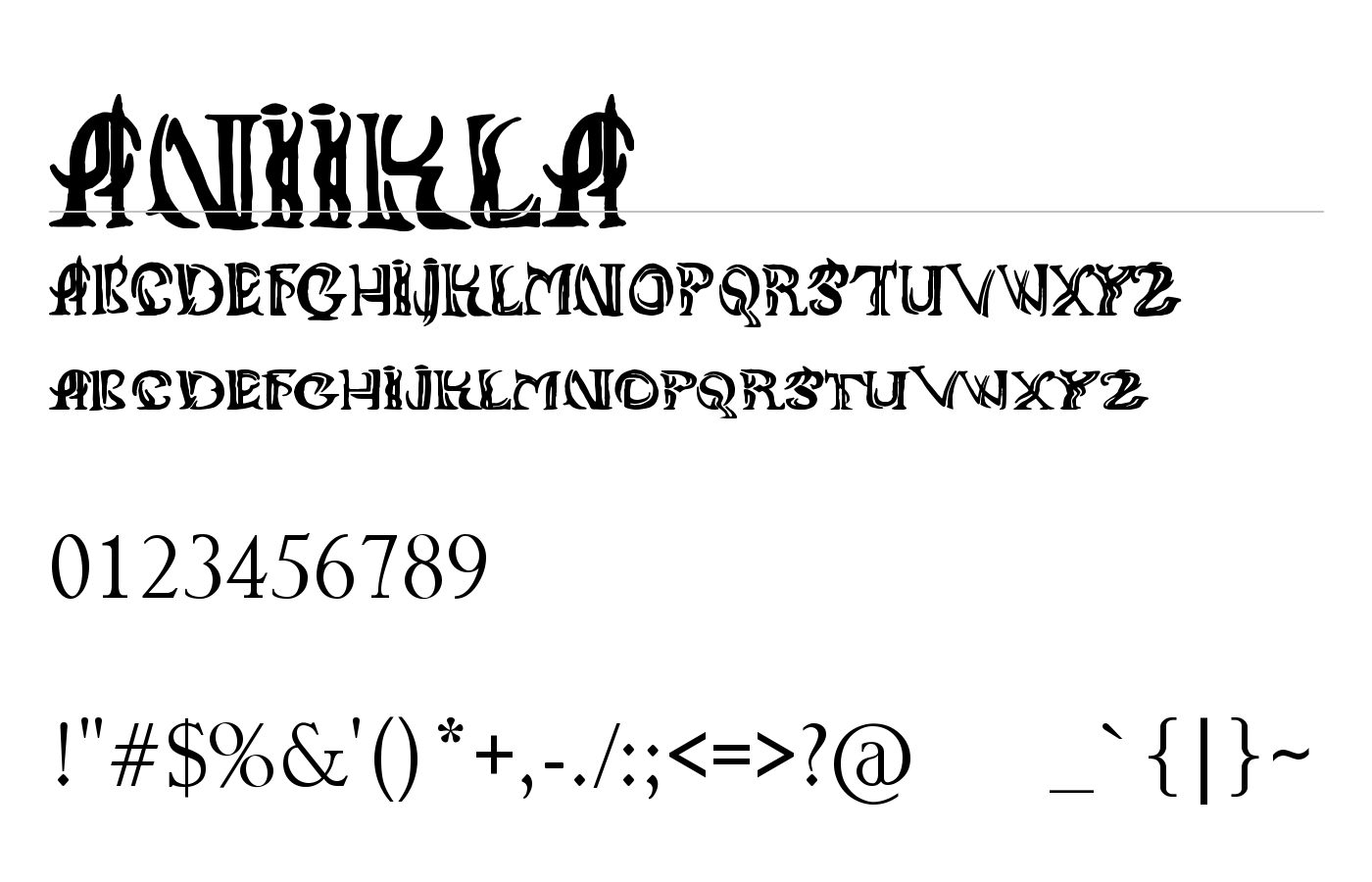
ANIIKLA is a bold, ornamental serif font with a high contrast between thick and thin strokes, featuring unique, almost gothic letterforms with stylish, decorative elements. Its condensed width and intricate details give it a mysterious and artistic vibe, perfect for eye-catching headlines, logos, or projects needing a dramatic, vintage flair. This font works best where strong visual impact and personality are desired over readability in long texts.
ANIIKLA Font